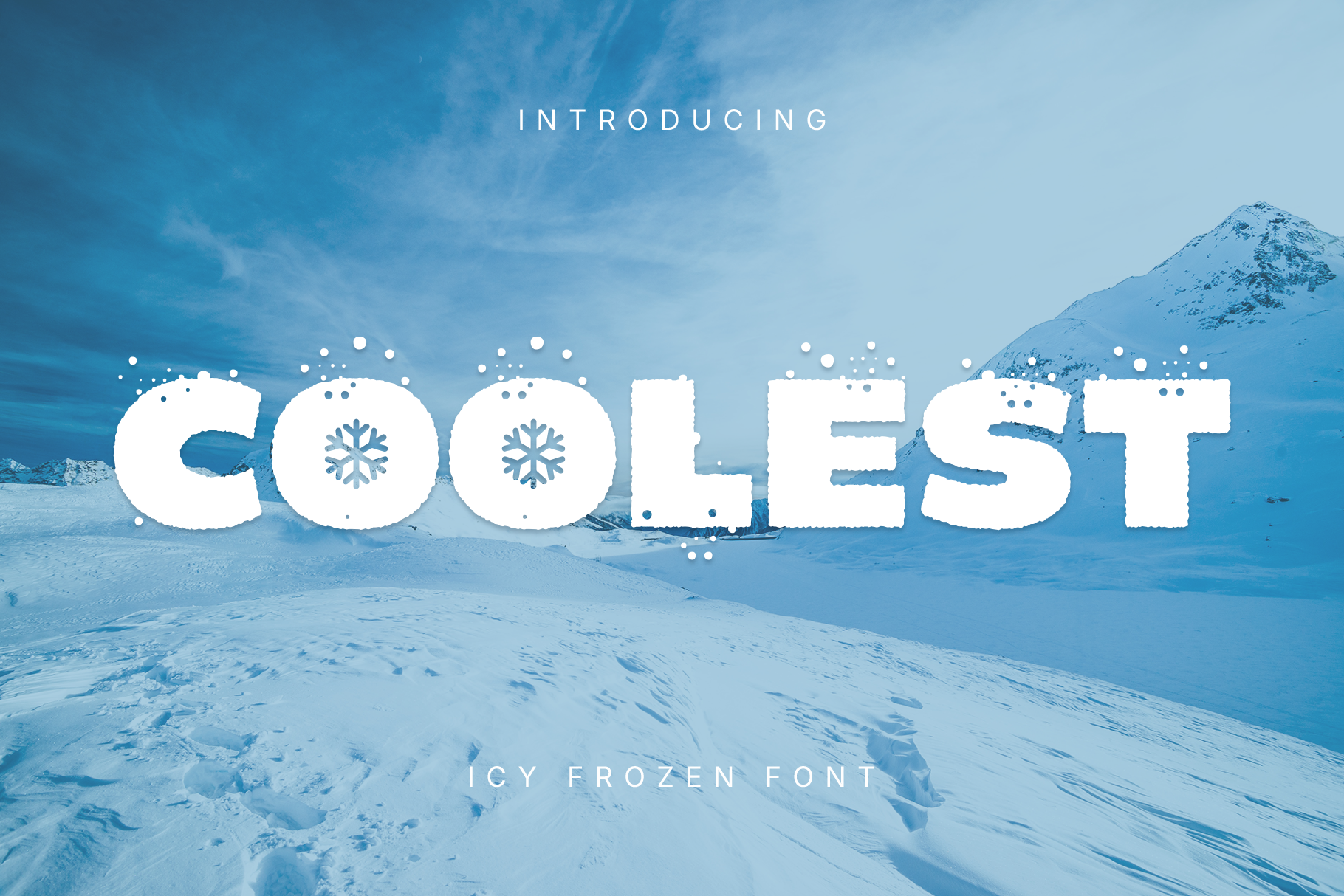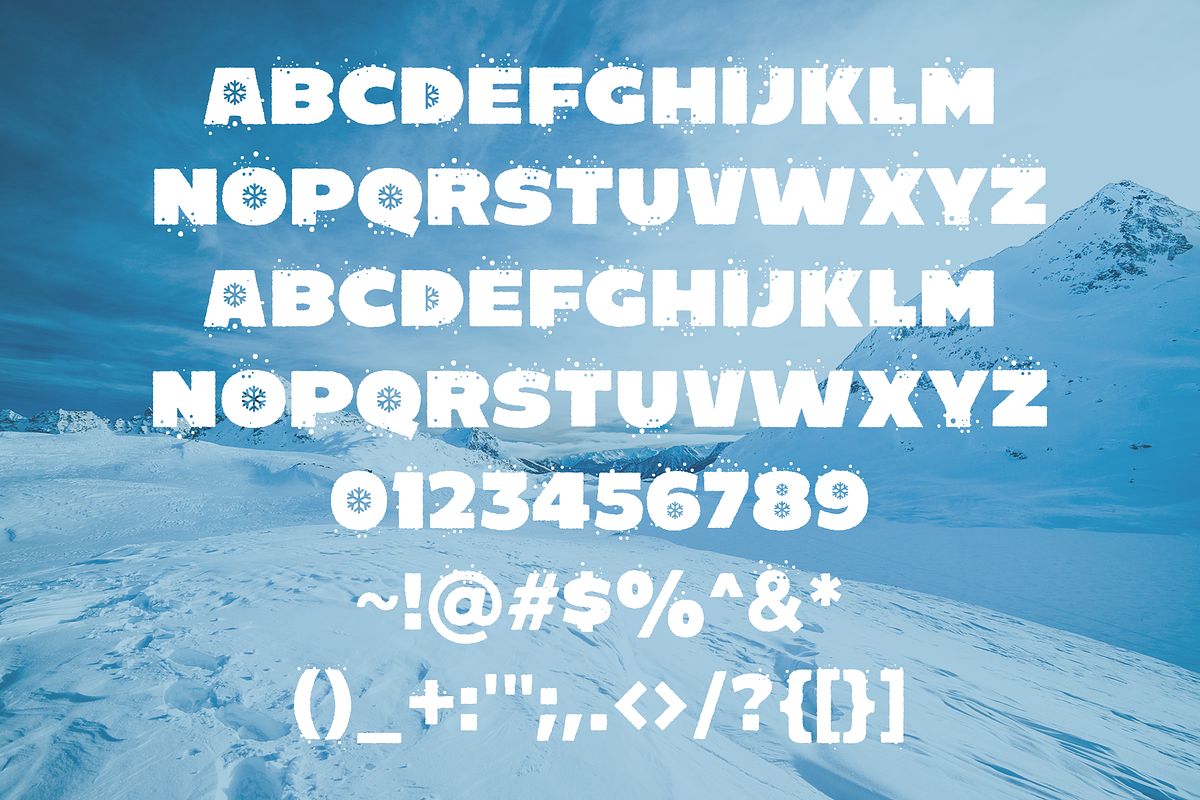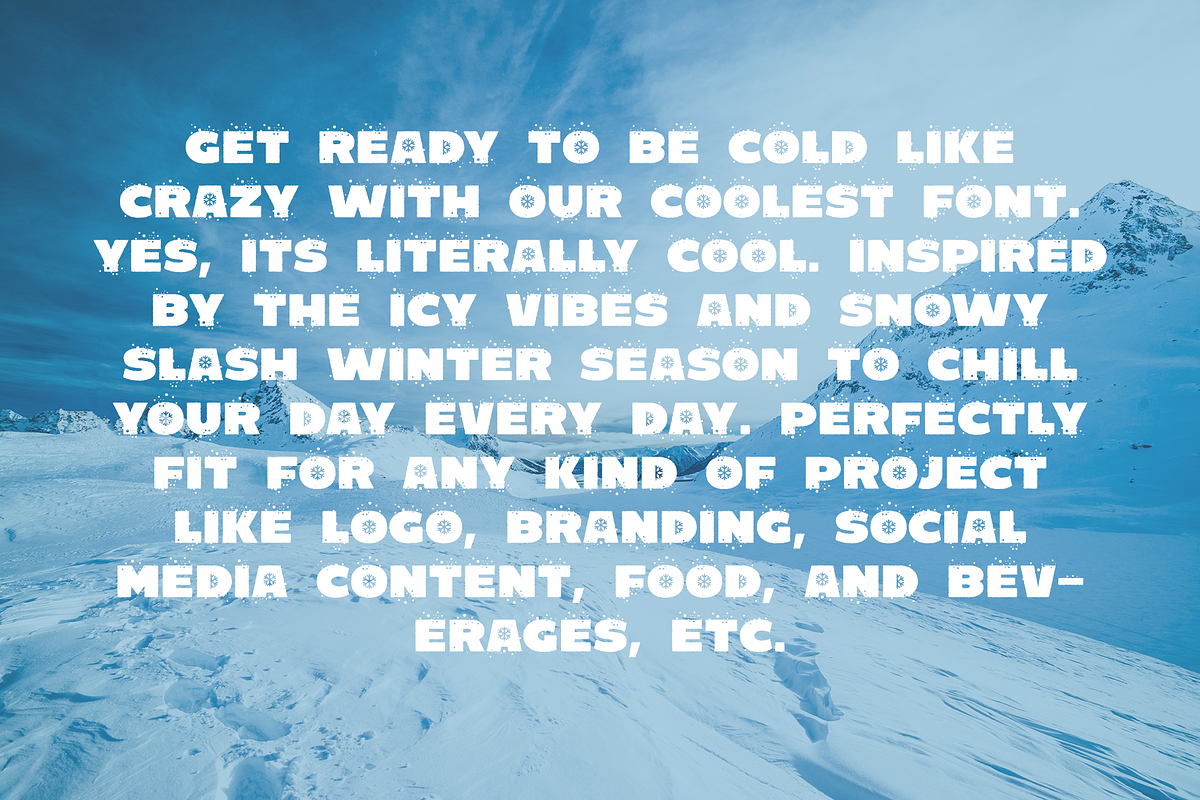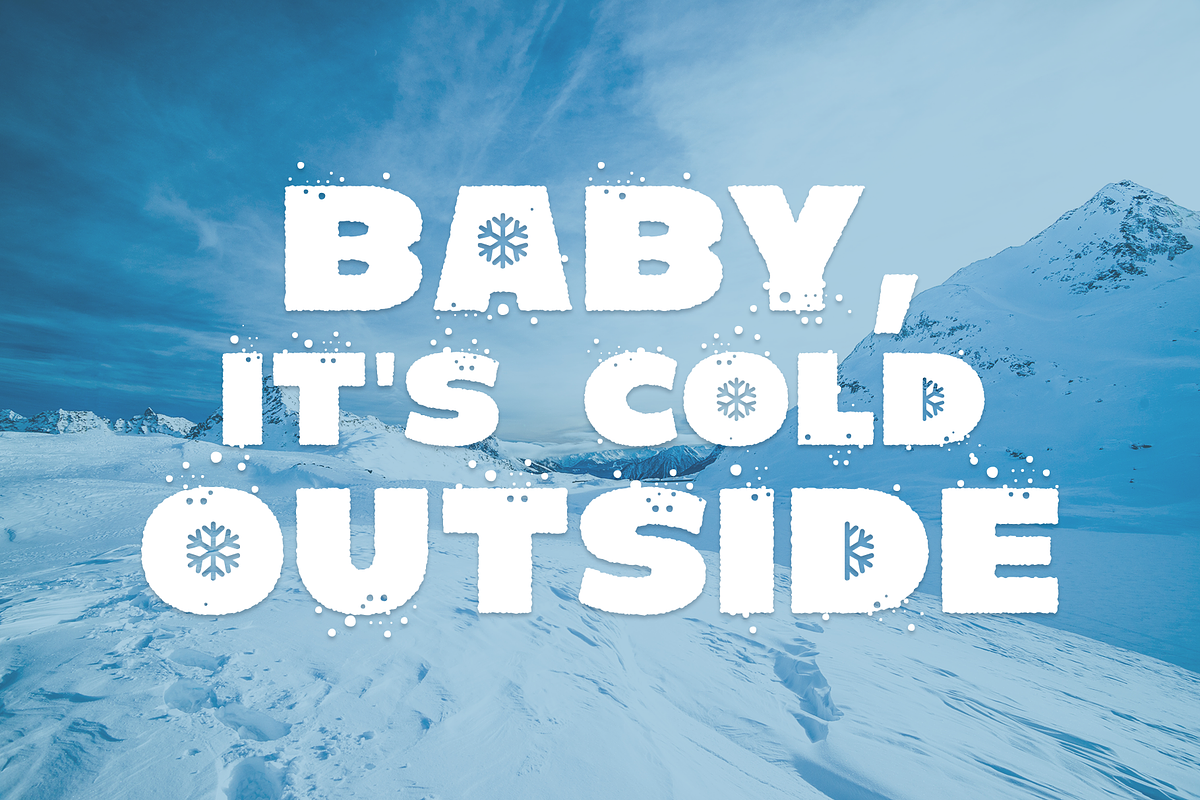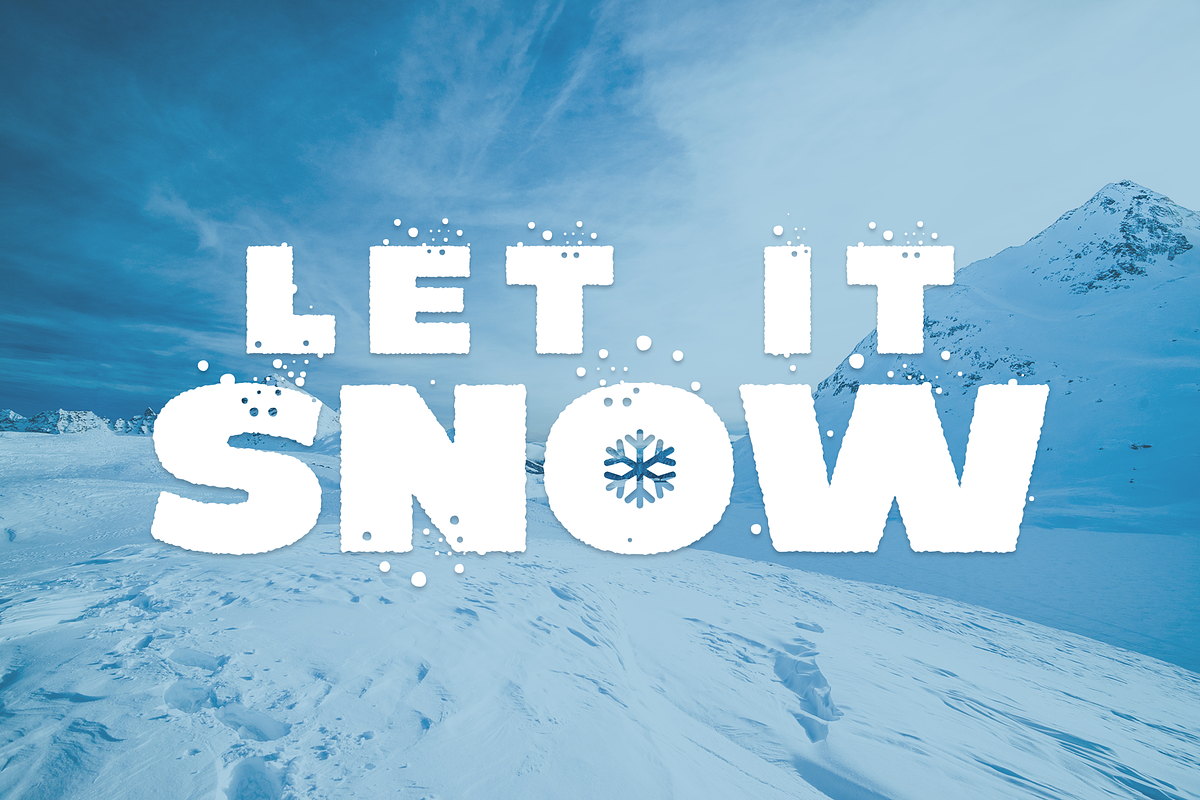
Coolest – Icy Frozen Fonts
Get ready to be cold like crazy with our COOLEST font. Yes, it’s literally cool. Inspired by the icy vibes and snowy slash winter season to chill your day every day. Perfectly fit for any kind of project like logo, branding, social media content, food, and beverages, etc.
Simply a block of ice for your visuals, instant cool guaranteed.